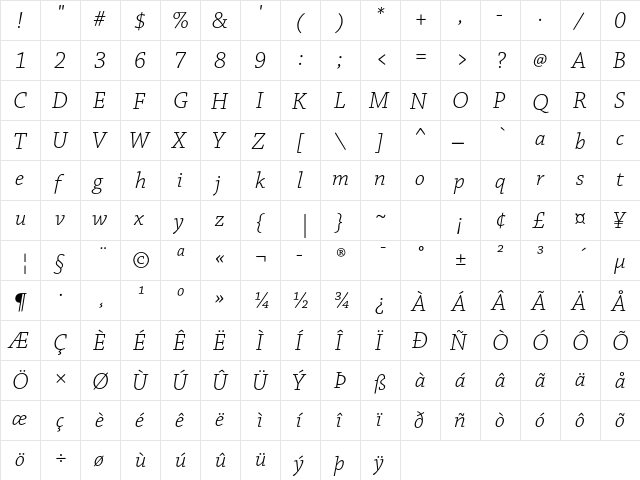
Chaparral Pro Light Italic Font Preview
Chaparral Pro Light Italic
Chaparral Pro Light Italic Font Details
| Style | Light Italic |
| Designer | Carol Twombly |
Design Context for Chaparral Pro Typeface
Chaparral Pro is a composed and adaptable typeface that performs quietly and consistently across a wide range of design contexts. The dynamic lean of this cut emphasises speed and emphasis in any layout. Its slender proportions lend an understated elegance to any composition.
Pro Tip: Try Chaparral Pro for annotation and caption copy alongside an upright companion — the contrast in angle creates a dynamic but ordered typographic system.